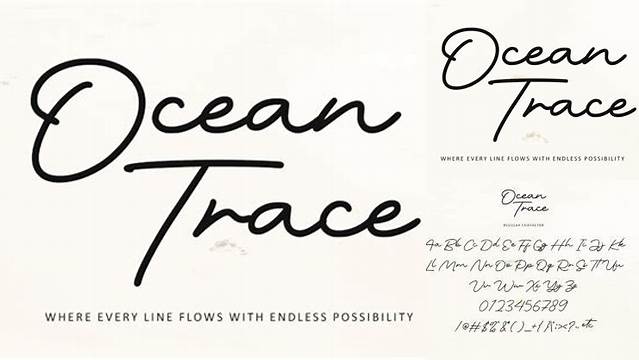
Ocean Trace Font: What Makes It Special?
So, what's the deal with the Ocean Trace font? Well, it's not just another font; it's a statement. It typically features a handwritten or script style, often with a touch of modern flair. Think elegant curves, smooth lines, and a generally friendly vibe. This makes Ocean Trace perfect for various applications, from crafting beautiful invitations and social media graphics to designing logos and adding a personal touch to your website. The charm of Ocean Trace lies in its versatility. It can be dressed up or down, making it a great choice for projects that need a touch of sophistication without being overly formal. The carefully crafted letterforms often create a sense of fluidity and movement, adding visual interest and making your designs stand out. Many variations might also include stylistic alternates or ligatures, allowing for even more customization and unique looks. These extra features can help create a more authentic and handwritten feel, which is often highly valued in design. Furthermore, Ocean Trace fonts are generally designed with legibility in mind, meaning they are readable even at smaller sizes, which is crucial for any design. This is great for making sure your message comes across loud and clear. Many designers and font users appreciate the attention to detail, making Ocean Trace a favorite among those seeking a font that is both beautiful and functional. In essence, it brings a sense of artistry and personalized touch to any project you're working on.
Ocean Trace Font: Personal Projects Where It Shines
So, where can you use the Ocean Trace font for your personal projects? The possibilities are almost endless! Here are some ideas to get your creative juices flowing. First, you can use it for creating stunning invitations for special occasions, such as birthdays, weddings, baby showers, or any other event you're planning. Ocean Trace fonts add a touch of elegance and personalization that makes your invitations stand out. Next, you can spice up your social media graphics! Create eye-catching quotes, announcements, or promotional content for your personal accounts. Ocean Trace will add a unique flair and personality to your posts, making them more engaging. Furthermore, you can elevate your personal website or blog. Design headers, titles, and other visual elements to create a cohesive and visually appealing design. Consider incorporating the font into your website's logo or branding elements for a professional look. You can also create custom wall art, posters, or prints to decorate your home. Use inspiring quotes, personal messages, or custom designs to make your living space more personalized. If you're into crafting, Ocean Trace is a great option. Incorporate it into your scrapbooking pages, handmade cards, and other creative projects. The font will add a touch of artistry and personality to your crafts. And, of course, use it to create beautiful digital art, such as desktop wallpapers, phone backgrounds, and other digital designs. The possibilities are limitless, so go ahead and explore your creativity!
Alternatives to Ocean Trace Font: Exploring Other Options
Not sure if the Ocean Trace font is the perfect fit for your project? No worries! There are many alternatives to explore, depending on the style you are looking for. If you like the handwritten script style, consider fonts like Brush Script, Playlist, and Great Vibes. They offer a similar aesthetic with elegant curves and a personal touch. These fonts are great options for invitations, greeting cards, and other projects that require a friendly feel. On the other hand, if you want a more modern and clean look, explore sans-serif fonts, such as Montserrat, Lato, and Open Sans. These fonts offer clear and readable letterforms that work great for body text, headlines, and branding materials. They are versatile and adaptable to various design projects. For projects that require a more vintage or retro feel, consider serif fonts like Playfair Display, Lora, and Bodoni. These fonts offer a classic aesthetic that is suitable for headlines, posters, and other designs. They can add a touch of sophistication and nostalgia to your designs. Also, you can try some of the more experimental fonts that offer unique styles and aesthetics. These fonts are a great way to express your creativity. Just search online for "free fonts" or "best fonts" and explore the range of options available. You will be amazed by the number of styles available. Ultimately, the best font for your project depends on your needs and preferences. Consider the overall look and feel you want to achieve, and experiment with different fonts to find the perfect match. Take the time to try out different fonts and see which one best suits your project's tone and purpose.
Ocean Trace Font and the Future of Design: Looking Ahead
Looking ahead, the Ocean Trace font is likely to continue to be a valuable asset in the ever-evolving world of design. The font's script style aligns with some of the key design trends, which suggests that its popularity will continue. One trend is the emphasis on personalization and human-centered design. The font can add a personal touch to projects, making them more engaging. Another trend is the use of retro and vintage aesthetics. The Ocean Trace font complements these styles very well, adding charm and nostalgia to the designs. As design tools and technologies continue to evolve, it’s expected that the font will become even more versatile. It’s possible that future design software will offer more advanced features, which will allow designers to customize and enhance the font in unique ways. Designers will continue to explore the use of the Ocean Trace font in various design projects, from branding to website design, marketing materials, and social media posts. The font's versatility will make it a popular choice for those seeking a font with elegance, personality, and style. Ultimately, the future of the Ocean Trace font in design is bright. As trends continue to evolve, this font will continue to be a valuable asset to any designer's toolkit. Its enduring appeal will help designers create beautiful and engaging designs for years to come.